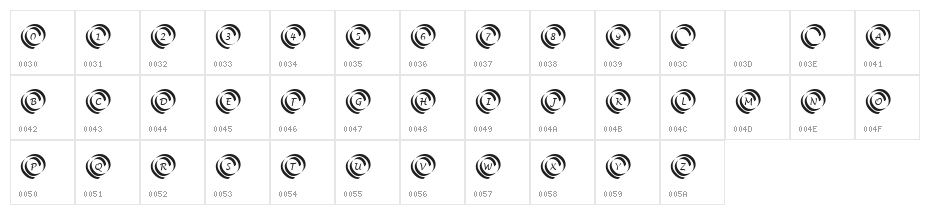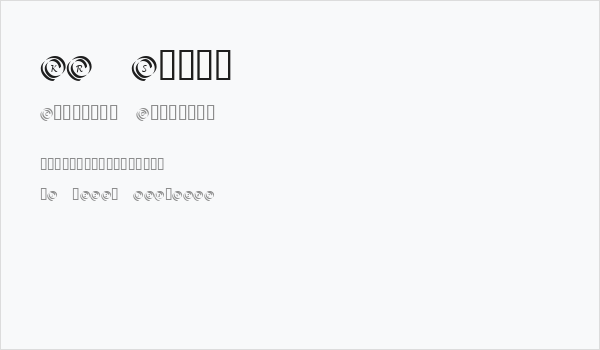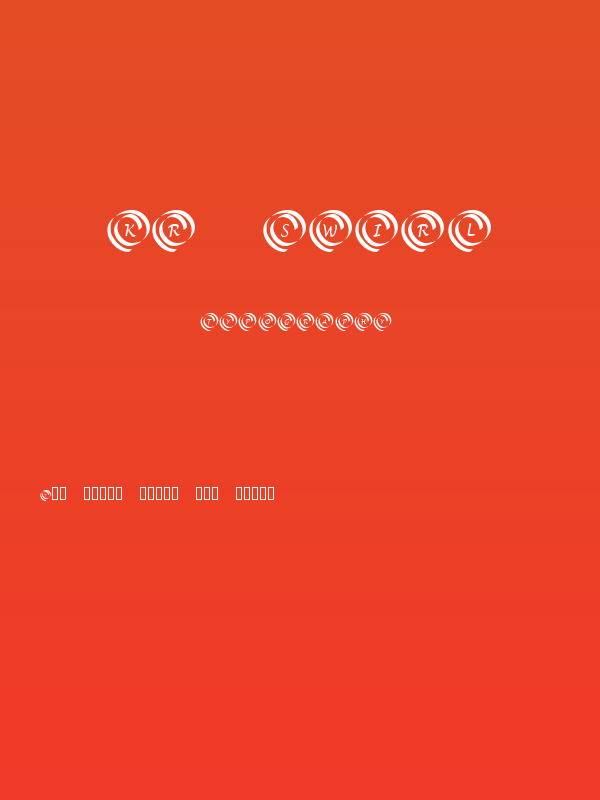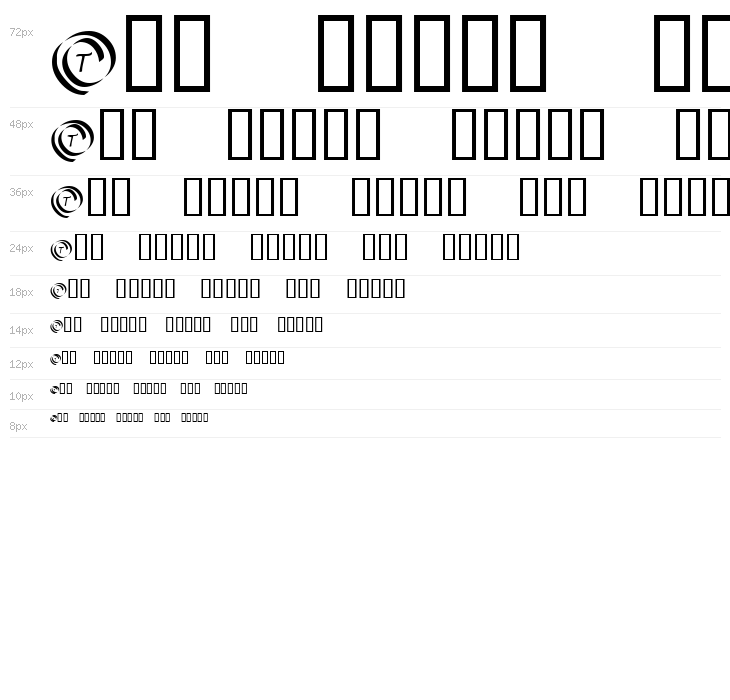
KR Swirl Font
KR Swirl Description
This font features a distinctive decorative style with each character enclosed in a swirling circular design. The uppercase letters A-Z and numbers 0-9 are prominently displayed, each with a unique swirl pattern that adds a dynamic and artistic flair. The characters are bold and eye-catching, making them suitable for creative and expressive design projects. The swirling elements give the font a sense of movement and energy, perfect for projects that require a touch of whimsy and creativity.
Proposed ProjectsIdeal for artistic posters, creative branding, event invitations, and decorative headings.